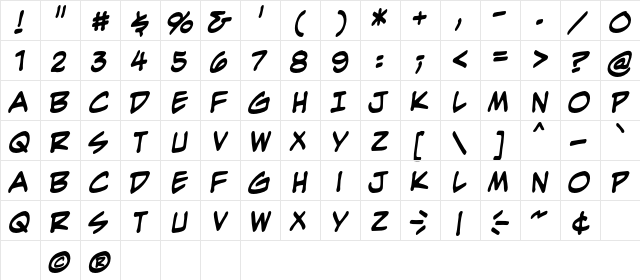
EvilGenius BB Bold
| Foundry | Nate Piekos. Blambot.com |
| Designer | Nate Piekos |
Design Context for EvilGenius BB Typeface
EvilGenius BB is a composed and adaptable typeface that performs quietly and consistently across a wide range of design contexts. The heavy weight commands attention and anchors typographic hierarchies.